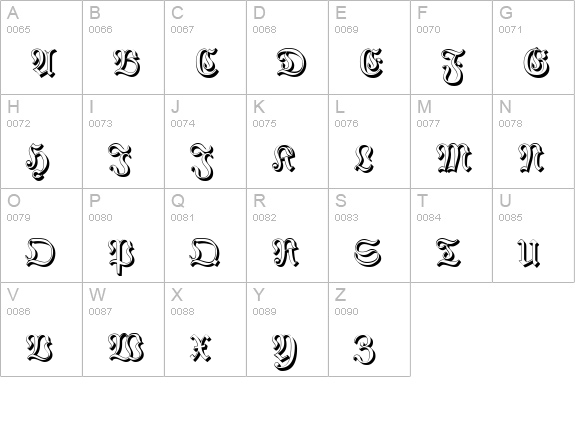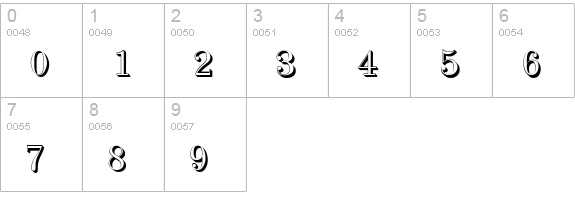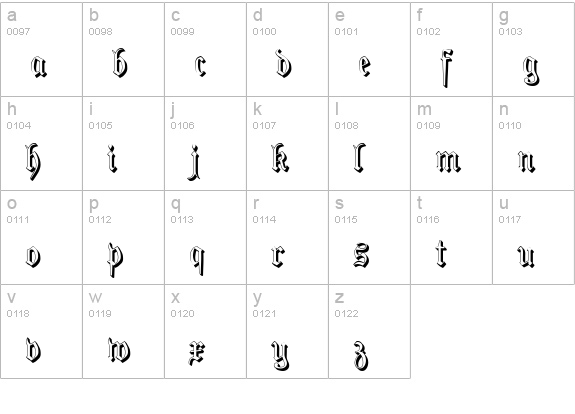
PhraxturedShadowed Font Details
PhraxturedShadowed font is a visually captivating typeface that exudes an air of mystery and intrigue. Its beautifully fractured and shadowed design adds depth and dimension to any text it graces, making it perfect for projects that require a touch of unique and enigmatic elegance. This font's intricate detailing and carefully crafted curves create a mesmerizing effect, captivating the eye and drawing the reader in. Its bold and edgy nature adds a modern twist to traditional typography, making it suitable for a wide range of creative endeavors. With PhraxturedShadowed font, you can effortlessly elevate your designs, whether it be for logos, posters, branding, or any other project that calls for a touch of sophistication and allure. Its versatility allows it to seamlessly adapt to various design styles, making it a valuable asset for any designer or creative professional. What's more, PhraxturedShadowed font is available for free! You can easily download this captivating typeface from FontsMarket.com, where its creators have generously made it freely accessible to all. This means that you can enhance your design projects without having to worry about any additional costs. So, if you're looking to add a dash of intrigue and allure to your next design venture, look no further than PhraxturedShadowed font. With its stunning fractured and shadowed design, this typeface is guaranteed to captivate and inspire. Download it for free at FontsMarket.com and unlock a world of creative possibilities.